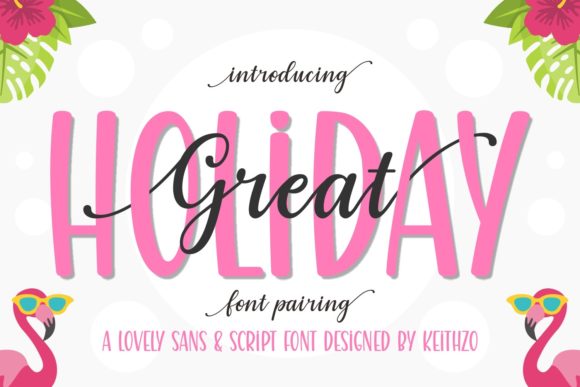
Step into the world of Great Holiday, a bouncy and playful display font that will add a touch of whimsy and cheer to your designs. This captivating font, meticulously crafted by Keithzo of 7NTypes, invites you on a delightful journey of creativity.
Great Holiday is the perfect choice for those seeking a font that exudes joy and merriment. Its energetic and dynamic glyphs dance across the page, bringing life and energy to your words. The font's inherent playfulness lends itself perfectly to projects such as greeting cards, party invitations, and social media posts.
But Great Holiday's versatility extends far beyond the realm of personal use. This font is a powerful tool for businesses looking to make a lasting impression. Its cheerful and inviting nature makes it ideally suited for logos, branding, and marketing materials. Imagine your company's name�動ing off the page in the whimsical curves of Great Holiday, instantly capturing the attention of your audience.
One of the most remarkable features of Great Holiday is its PUA encoding. This innovative technology allows you to access all of the font's glyphs and swashes with unparalleled ease. No longer will you be limited by the standard character set; now, you can unleash your creativity and explore the full potential of Great Holiday's enchanting repertoire.
With Great Holiday, you can confidently embark on your design projects, knowing that you have a font that will elevate your work to new heights. Its carefully crafted characters, infused with a sense of joy and wonder, will captivate your audience and leave a lasting impression.